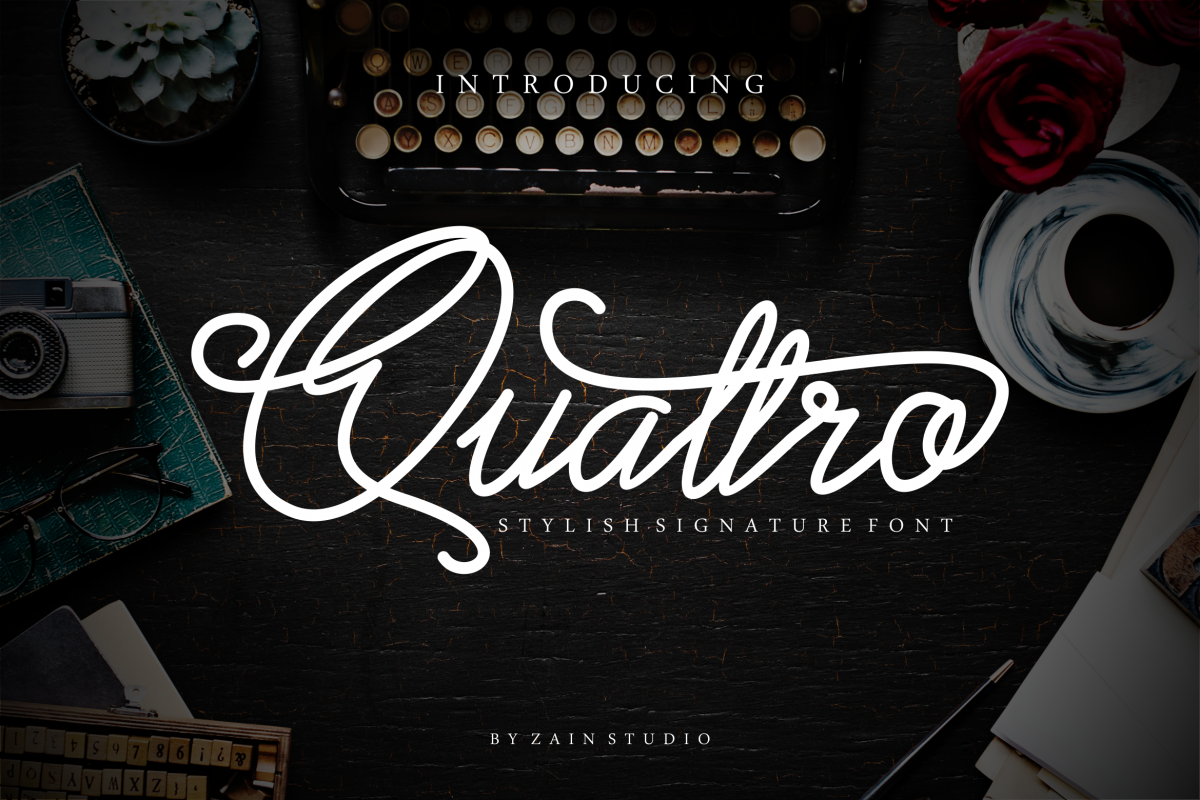
Quattro Script
QUATTRO
The Quattro is a stylish handwritten script font.
It’s perfect for logo branding projects, home ware designs, boutiques, hotel names, men apparel designs, product packaging, or simply as a stylish text overlay to any background image.